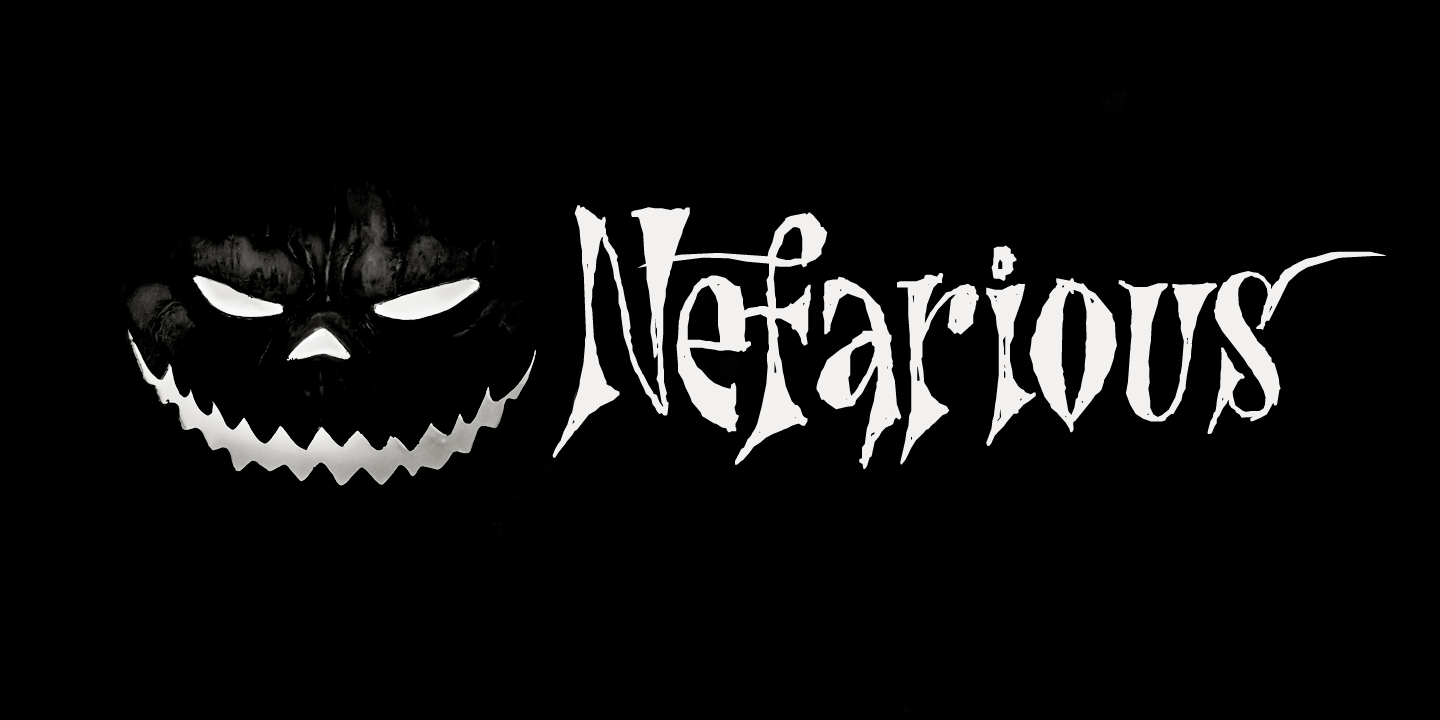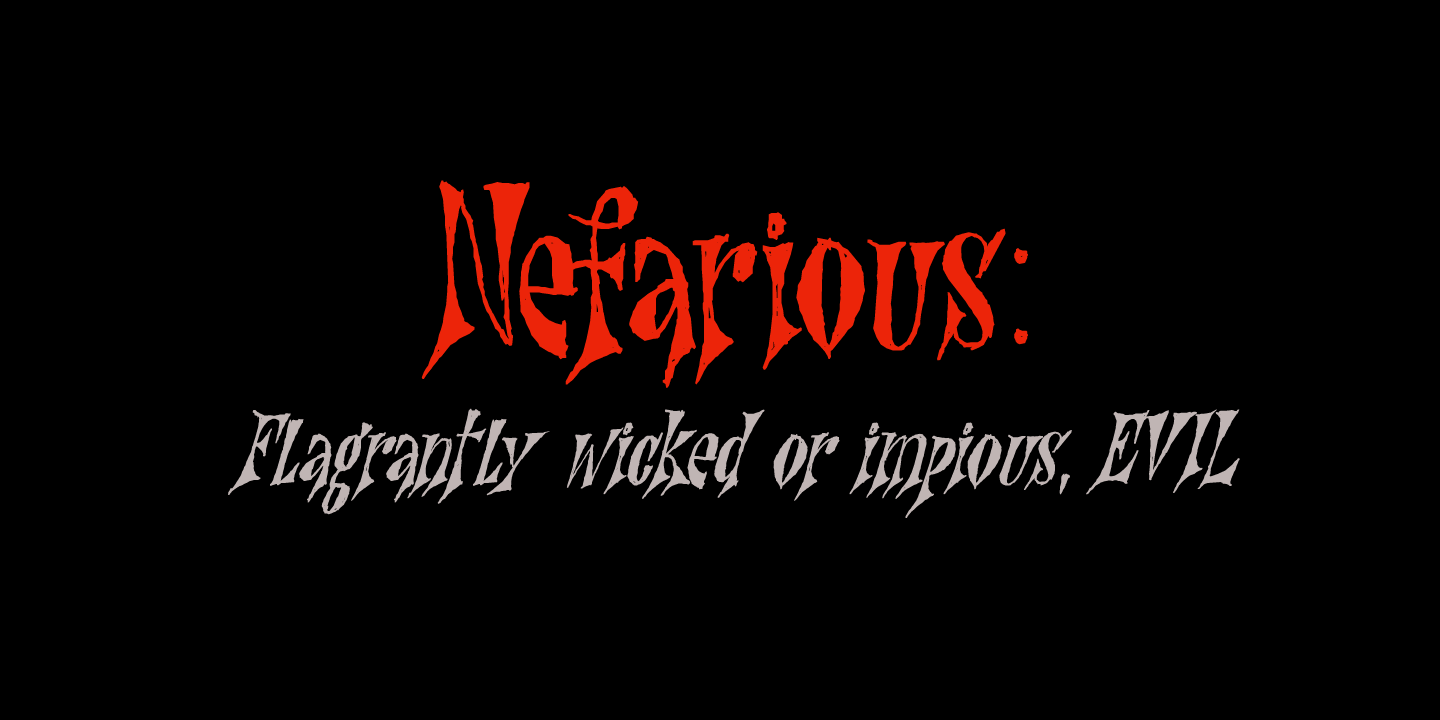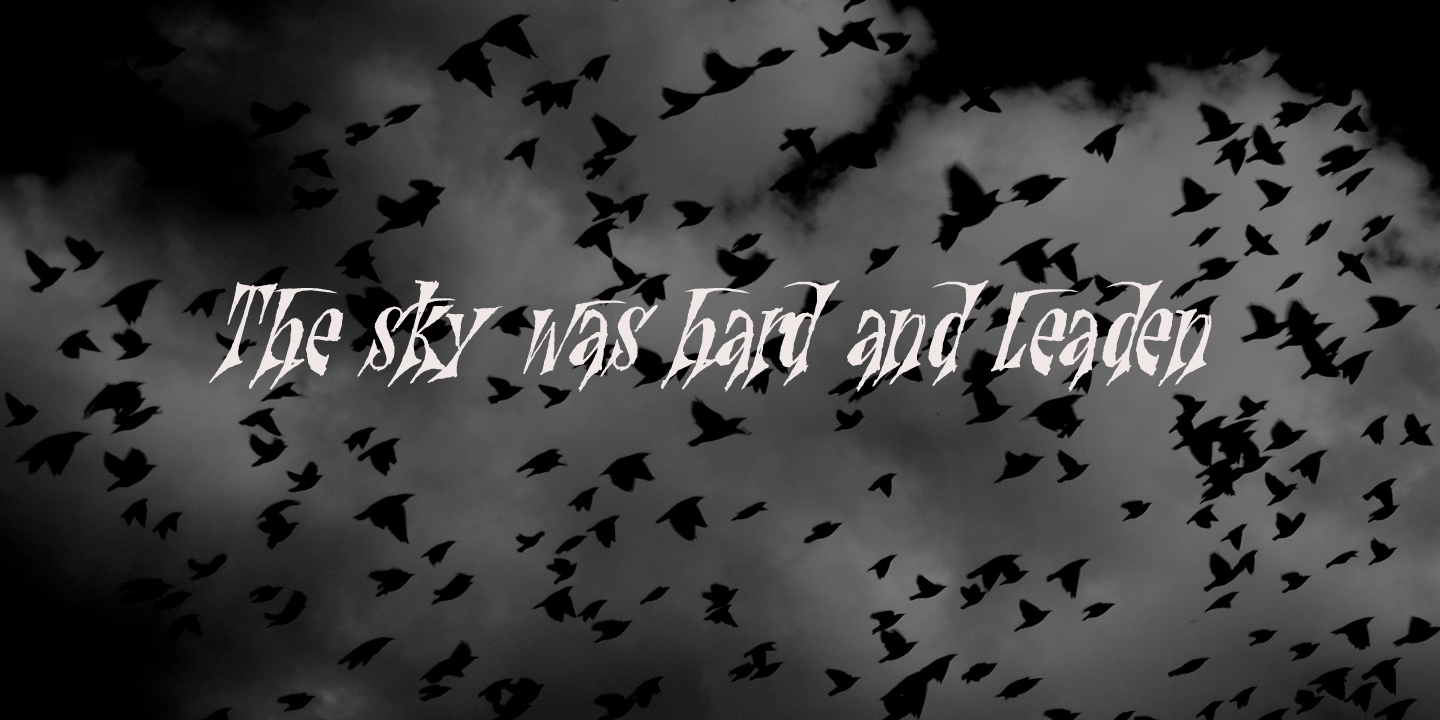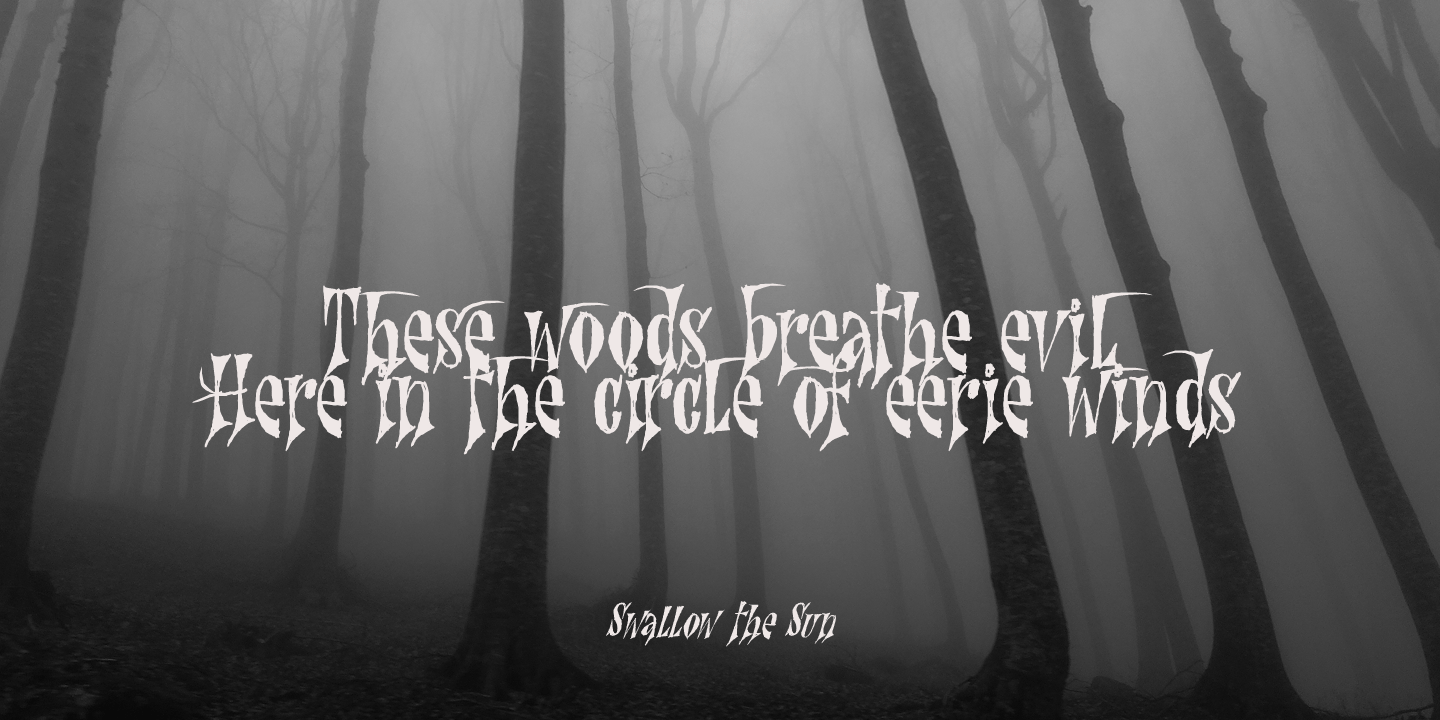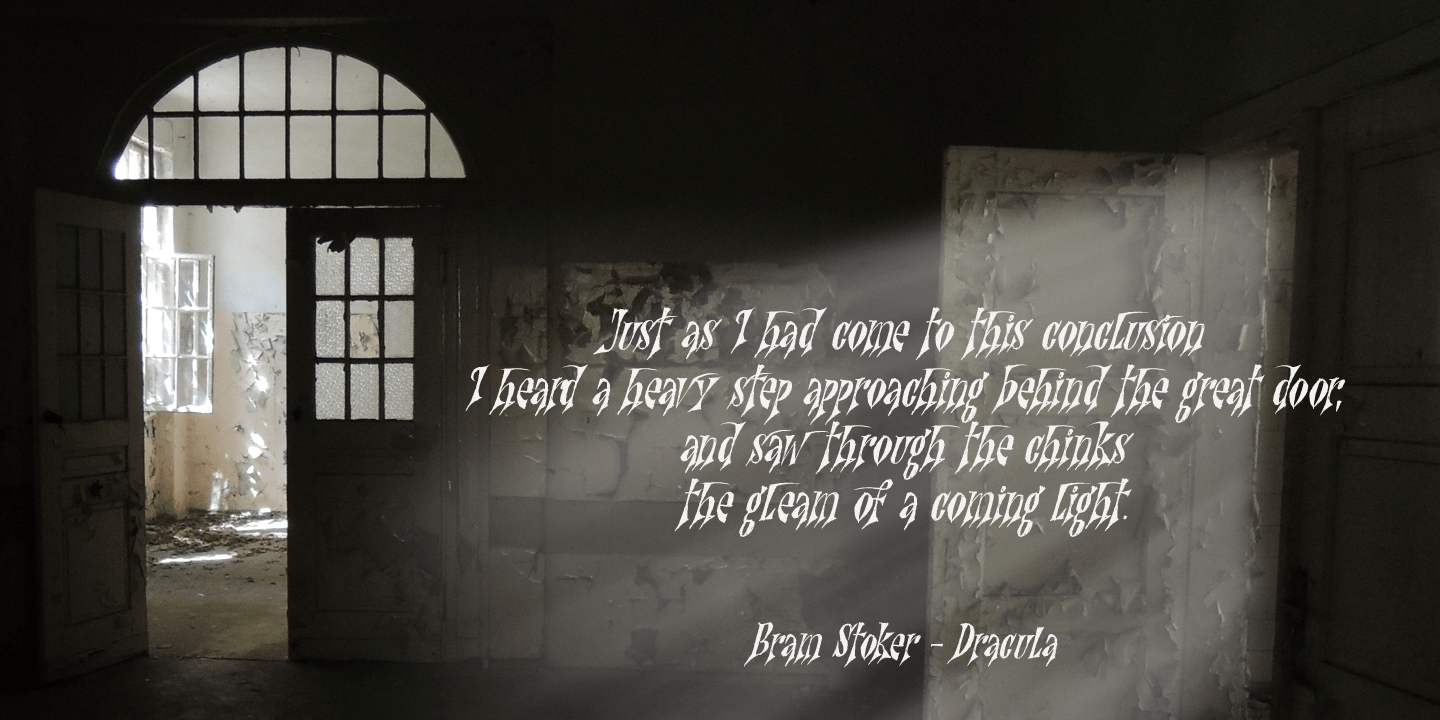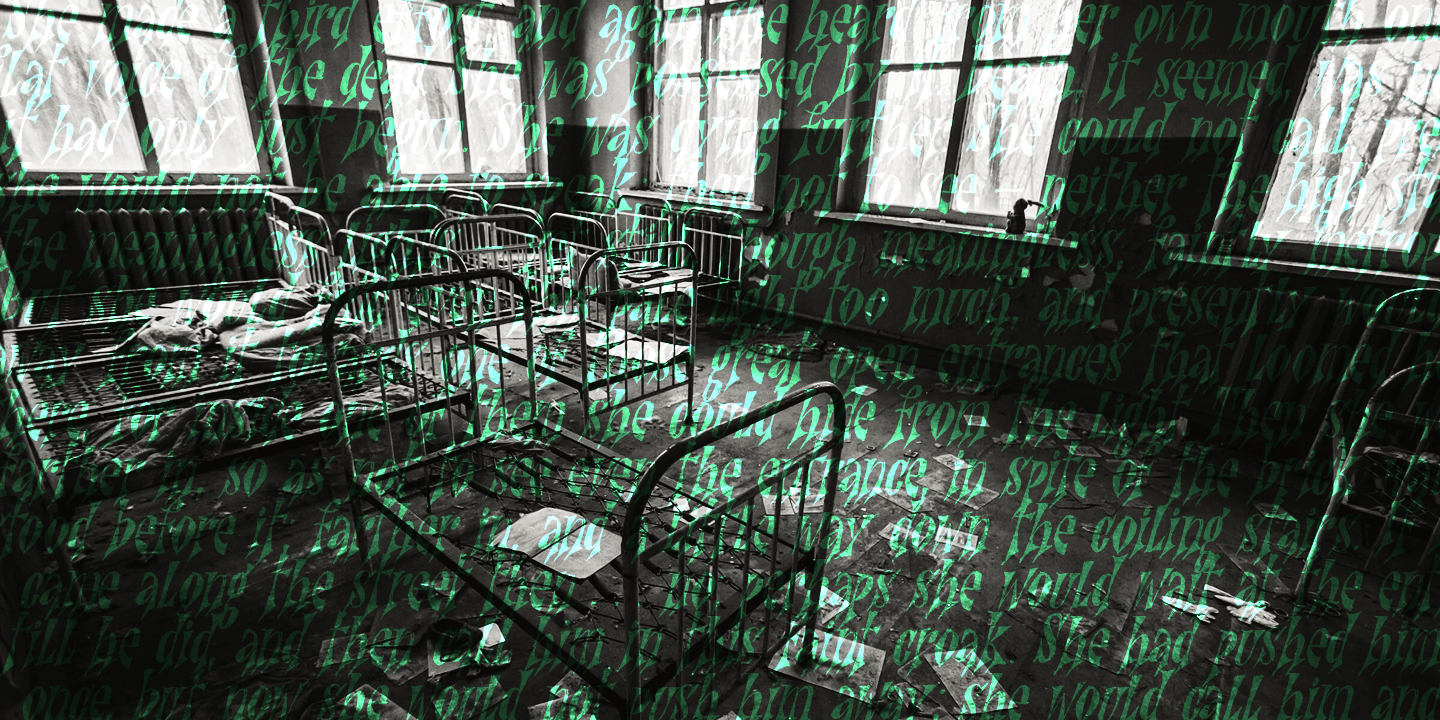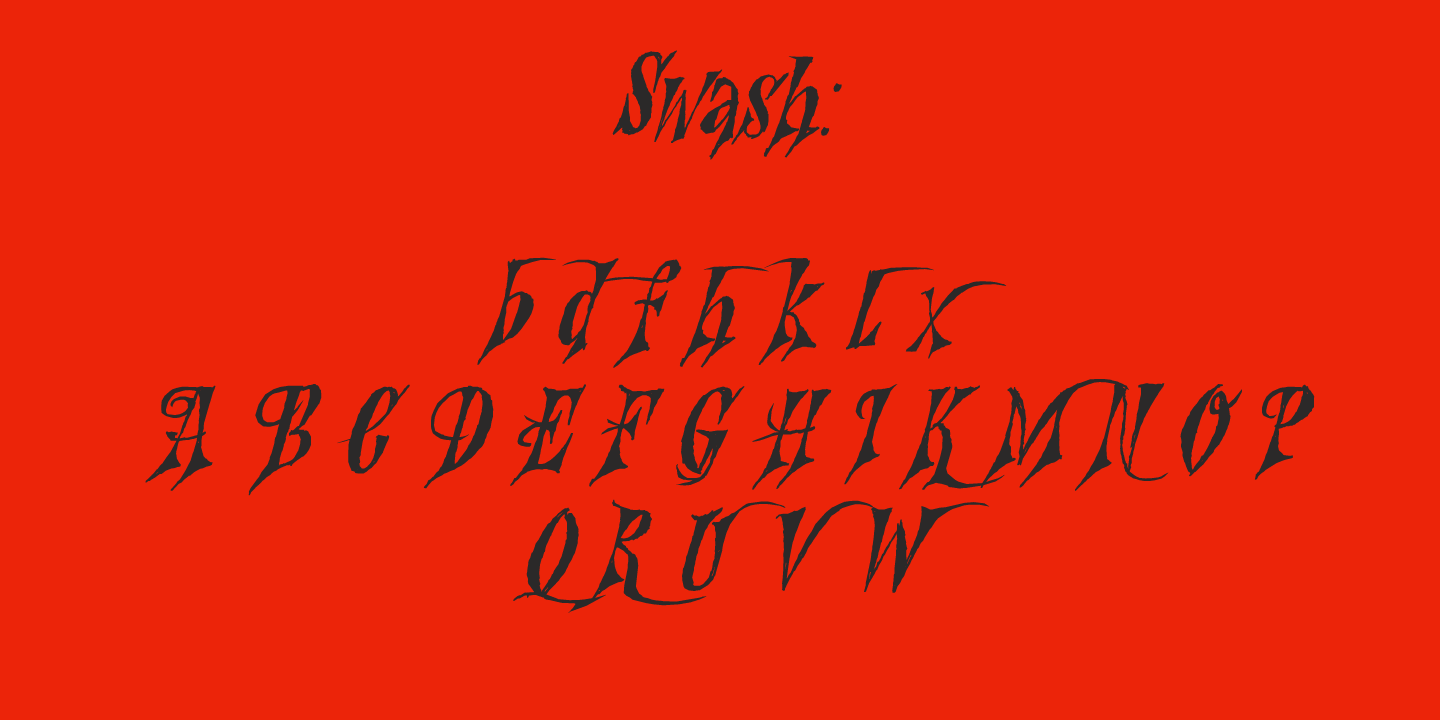
Nefarious
A few fonts ago I mentioned the fact that I like posh English words; words you don't really use in conversation. As I am busy expanding my ?halloween? font collection, I came across the beautiful word Nefarious. It means wicked or evil and when you say the word, it even sounds evil! Fantastic!
Nefarious is a halloween/witches font. It looks like my Griezelig font, but it is rougher and spikier. Use Nefarious for your halloween invitations, posters and books about evil geniuses. Comes with all diacritics and a bunch of swashes as well.